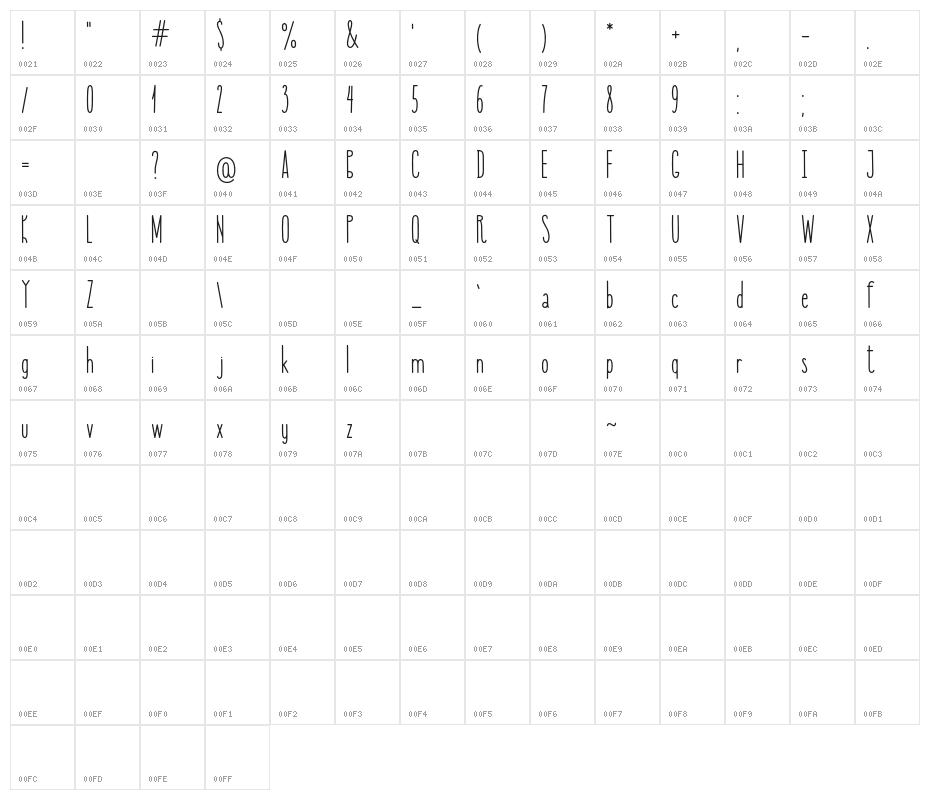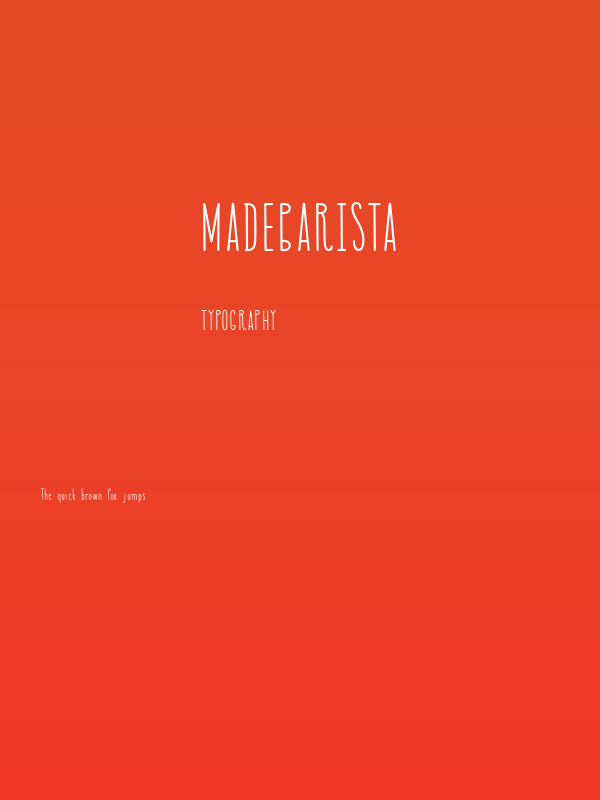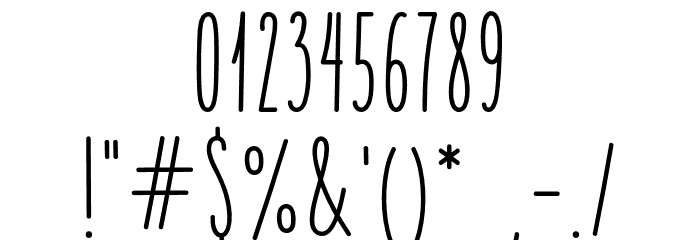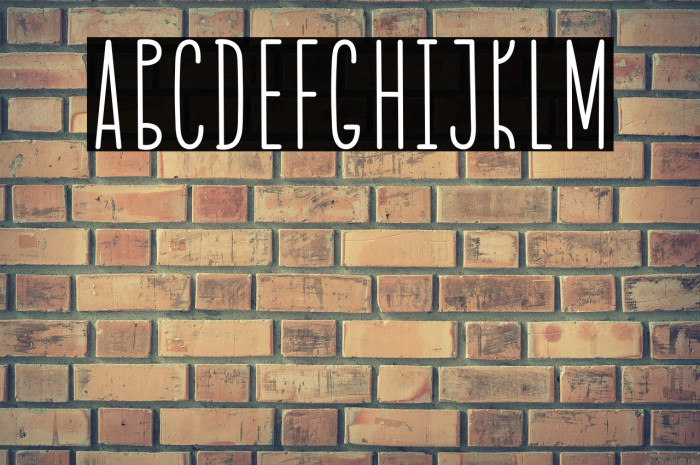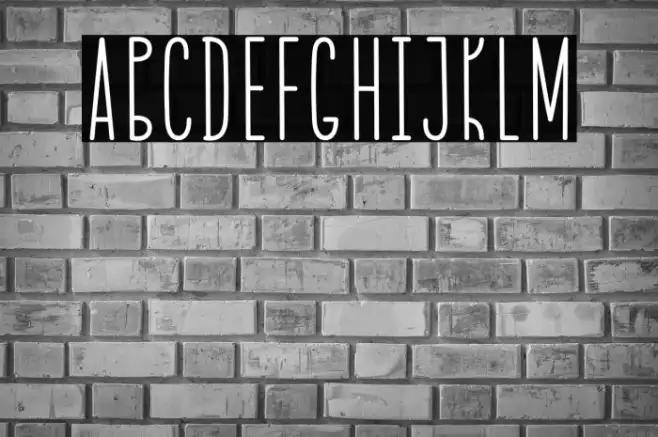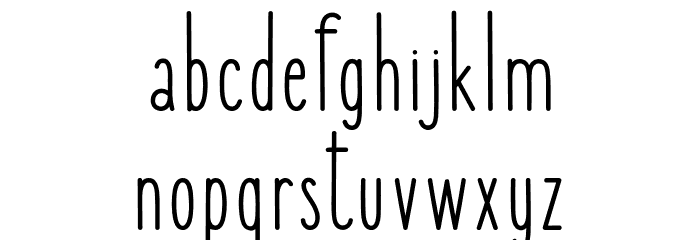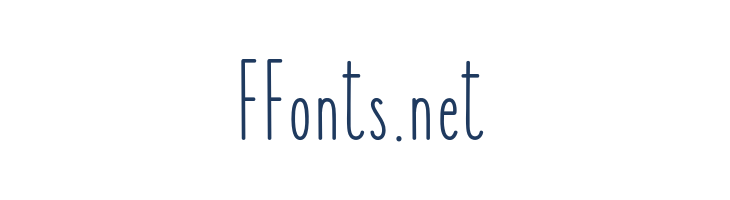
MADEBarista Font
MADEBarista Description
This font features a tall and narrow design with a playful and casual aesthetic. The uppercase letters are elongated, giving a sense of height and elegance, while the lowercase letters maintain a consistent style with slightly rounded edges. The numerals are clear and legible, matching the overall slender appearance. Special characters are included, maintaining the same thin and elongated style. The font's clean lines and minimalistic approach make it versatile for various design applications, offering a modern yet approachable feel.